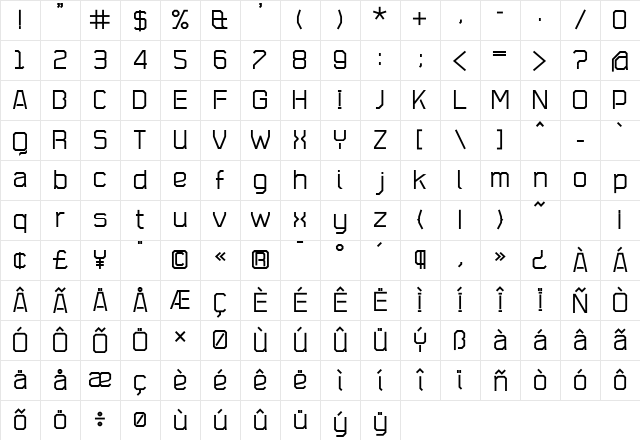
Plotta Bold Free Font
Plotta Bold
Complete Plotta Bold glyph index. Displaying only characters natively supported by Plotta Bold font.
Design Context for Plotta
Plotta is a composed and adaptable typeface that performs quietly and consistently across a wide range of design contexts. Its bold stroke weight gives it real presence on the page.